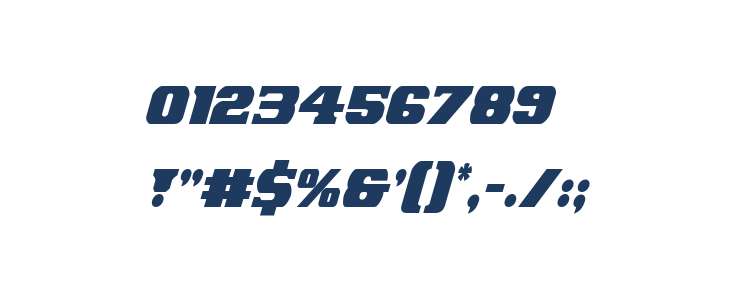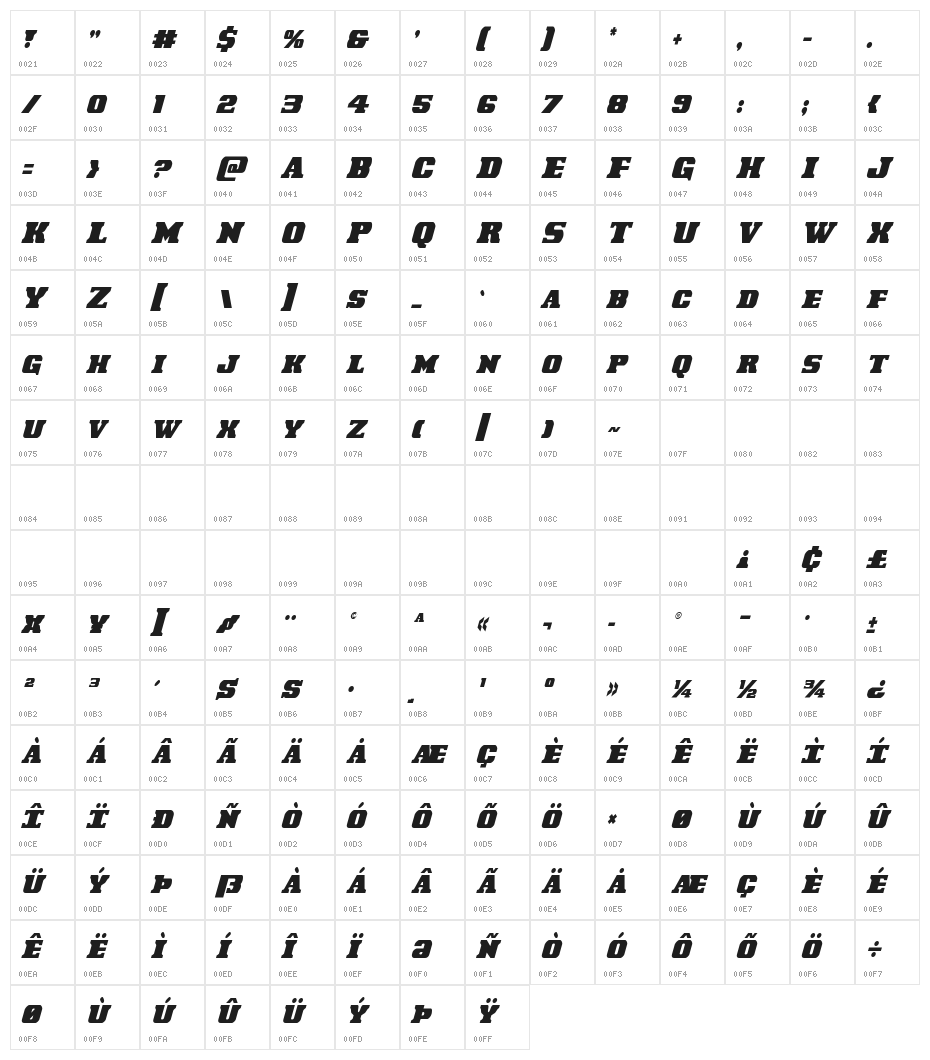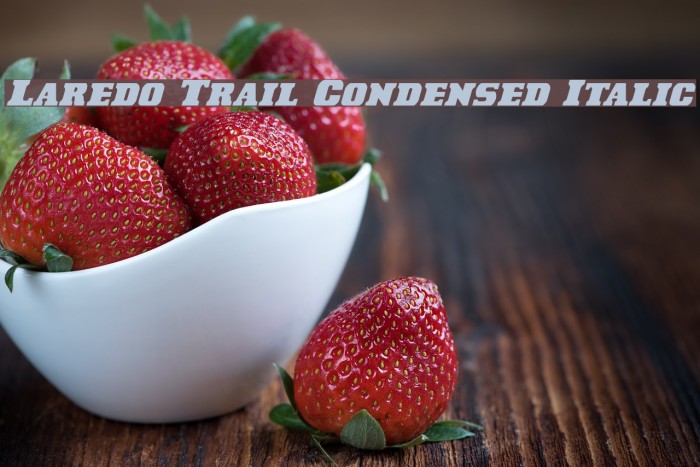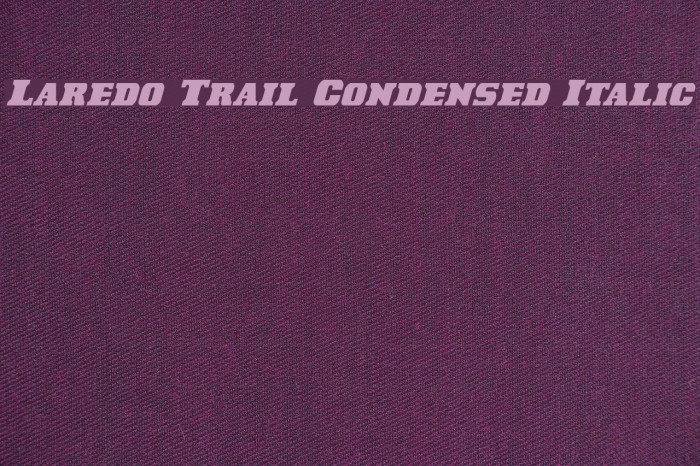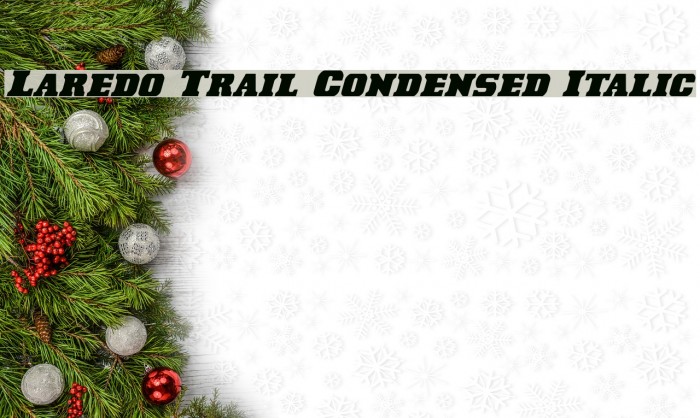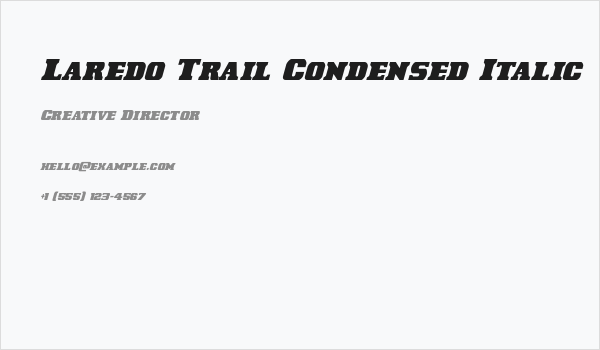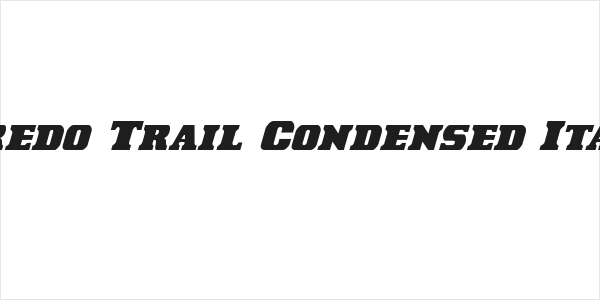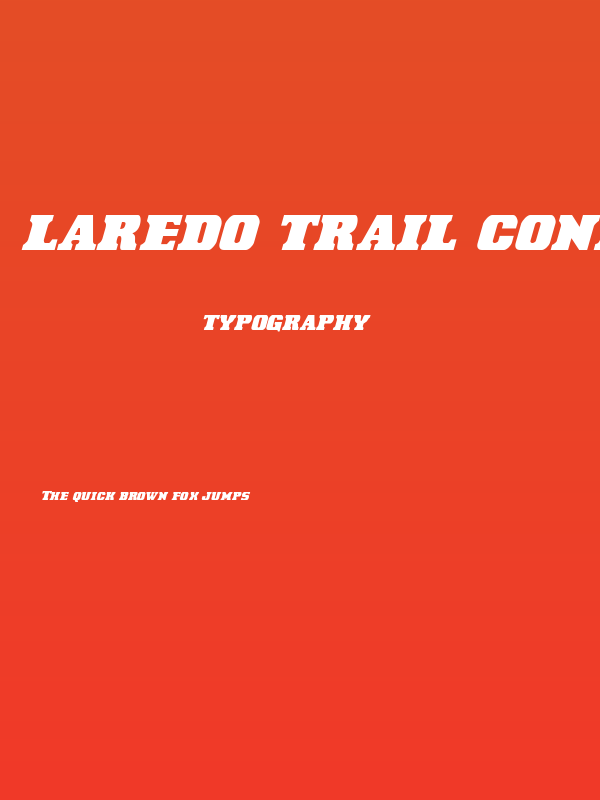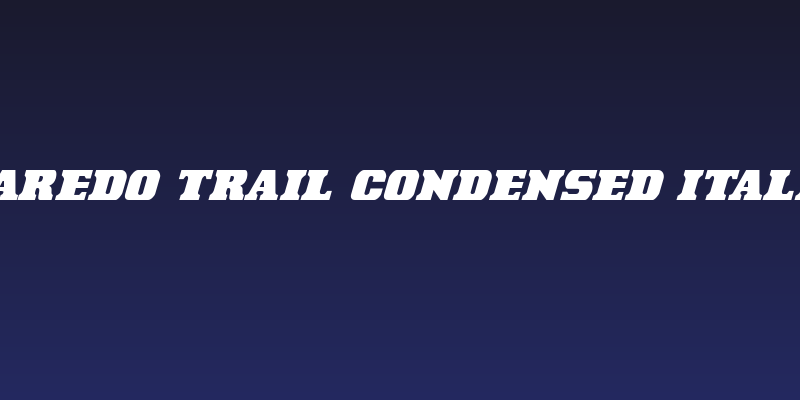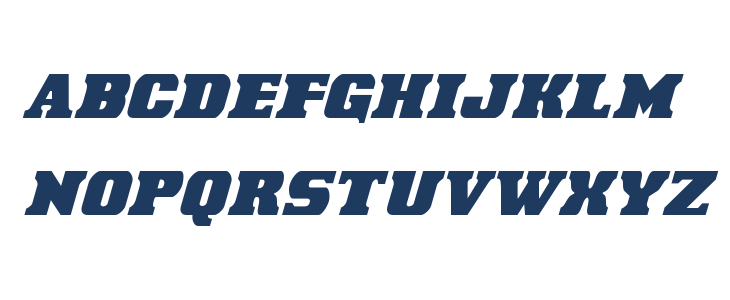
Laredo Trail Condensed Italic Font
Laredo Trail Condensed Italic Description
This font features a bold, condensed style with a distinct italic slant, giving it a dynamic and energetic appearance. The characters are robust and impactful, with thick strokes that convey strength and confidence. The condensed nature allows for efficient use of space, making it suitable for headlines and titles where emphasis is needed. The italic angle adds a sense of motion and urgency, enhancing its suitability for attention-grabbing designs. The font maintains a consistent weight throughout, ensuring readability while delivering a strong visual impact.
| Proposed Projects | Ideal for sports branding, action-themed posters, dynamic headlines, and impactful advertising materials. |